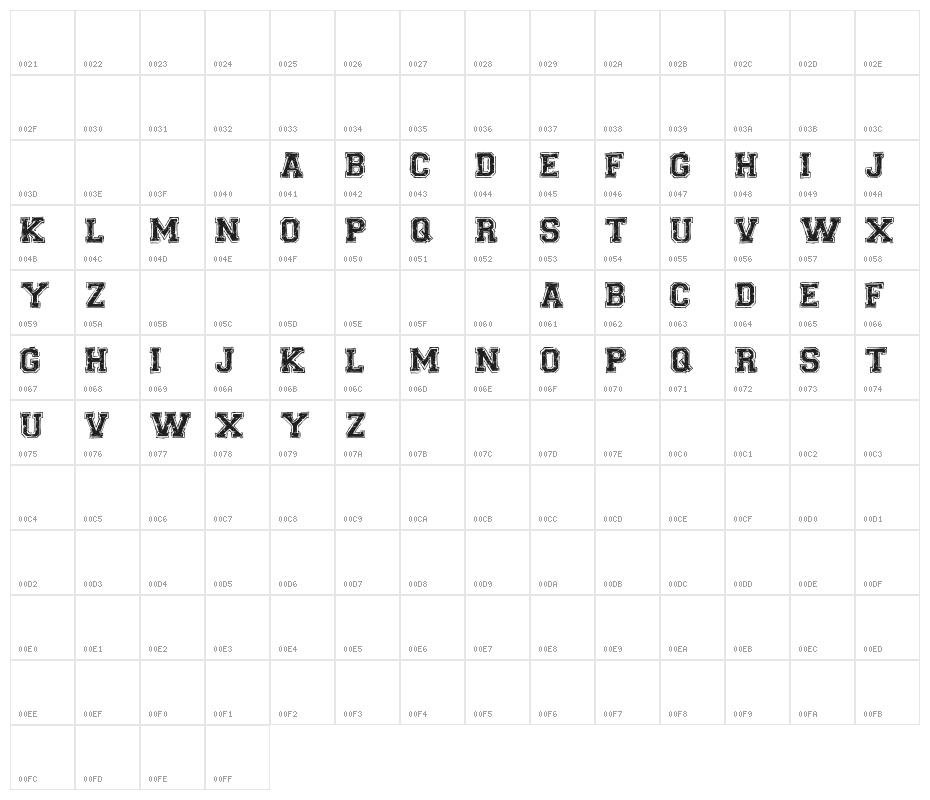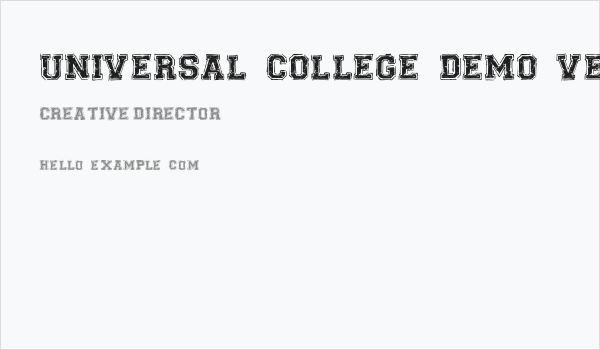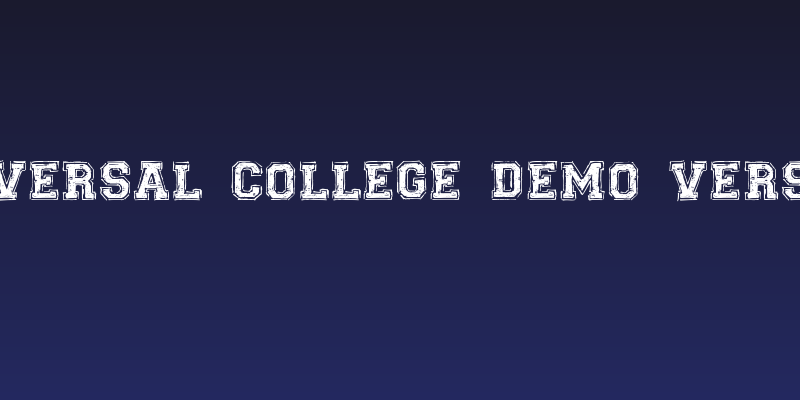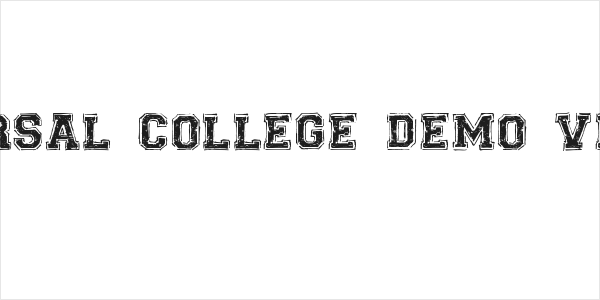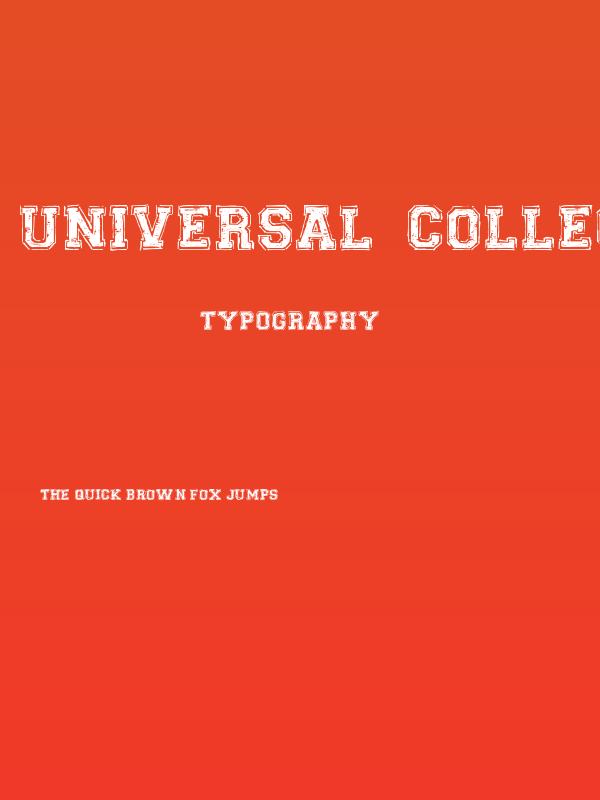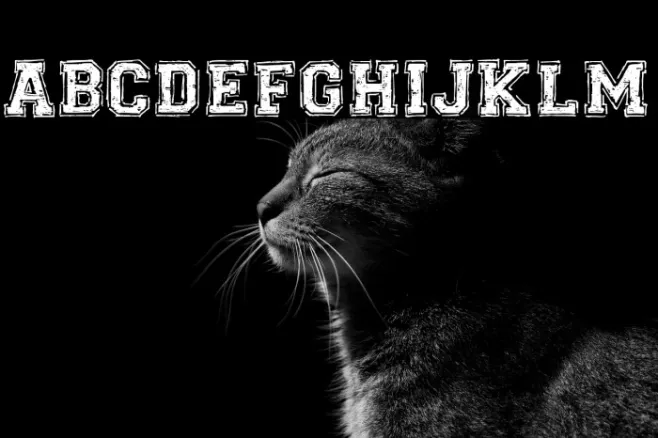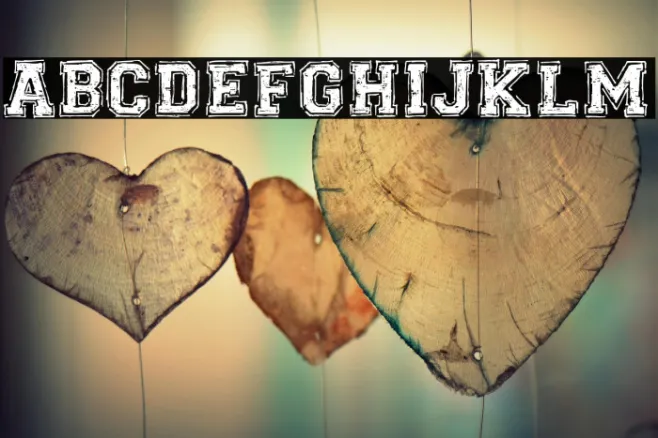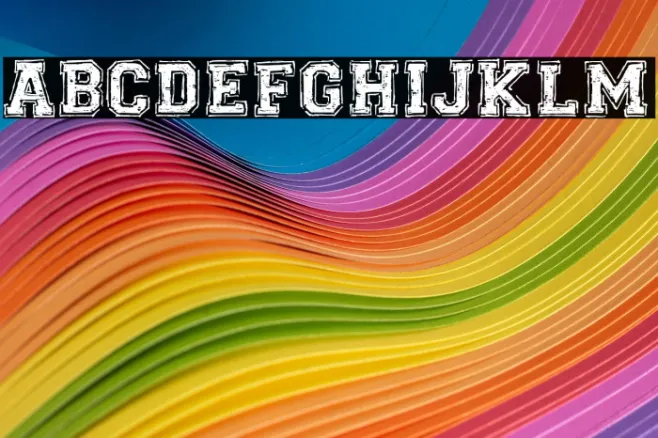
Universal-college_DEMO-version Font
Universal-college_DEMO-version Description
This font features a bold, decorative style with a strong vintage appeal. The characters are heavily stylized with intricate detailing that gives them a rugged, textured appearance. Each letter is outlined with a shadow effect, enhancing the three-dimensional look. The font's design is reminiscent of old-school college or varsity lettering, often seen in sports team logos or vintage posters. The uppercase letters are consistent in height and width, providing a uniform and balanced look. The overall aesthetic is both eye-catching and nostalgic, making it suitable for projects that require a bold statement.
| Proposed Projects | Ideal for sports team logos, vintage posters, apparel design, and branding that requires a bold, nostalgic touch. |